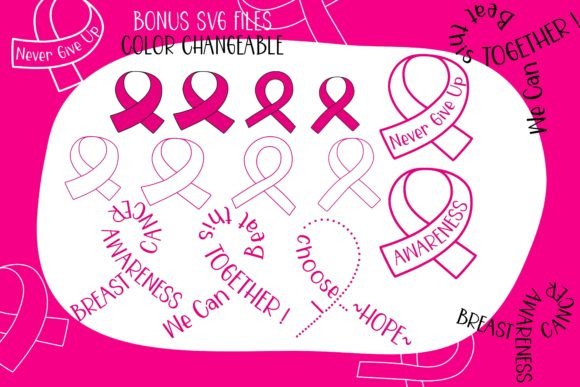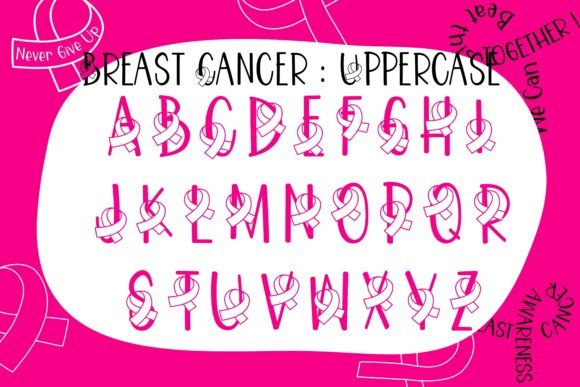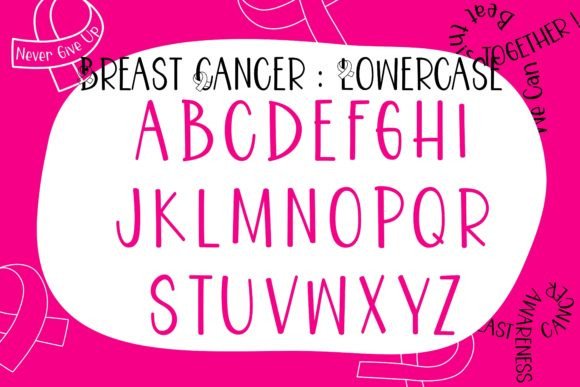
Breast Cancer Awareness Font
About the Breast Cancer Awareness Font
The Breast Cancer Awareness Font offers a perfect balance of form and function for your design needs. Breast Cancer Awareness is a decorative font designed in a friendly and lovely font style to cheer up and support all. It would be awesome for your upcoming projects, so add it confidently to your creations and you will love the results!
This font’s friendly, decorative style is ideally suited for headlines, short text blocks on posters or social media graphics related to health awareness campaigns, and packaging for relevant products. Its charm works well in supporting imagery for charities or celebratory events. However, due to its decorative nature, it’s less suitable for body text or UI elements where readability is paramount. Avoid using it for long paragraphs or in situations demanding high legibility.
For optimal visual impact, pair “Breast Cancer Awareness Font” with a clean sans-serif like Open Sans for body text, providing a strong contrast and maintaining readability. Alternatively, a classic serif like Garamond could add a touch of sophistication, creating a balance between the font’s friendly nature and a sense of elegance suitable for upscale branding.
The overall personality is cheerful and supportive, conveying optimism and a sense of hope. It projects a friendly, approachable, and slightly informal tone.